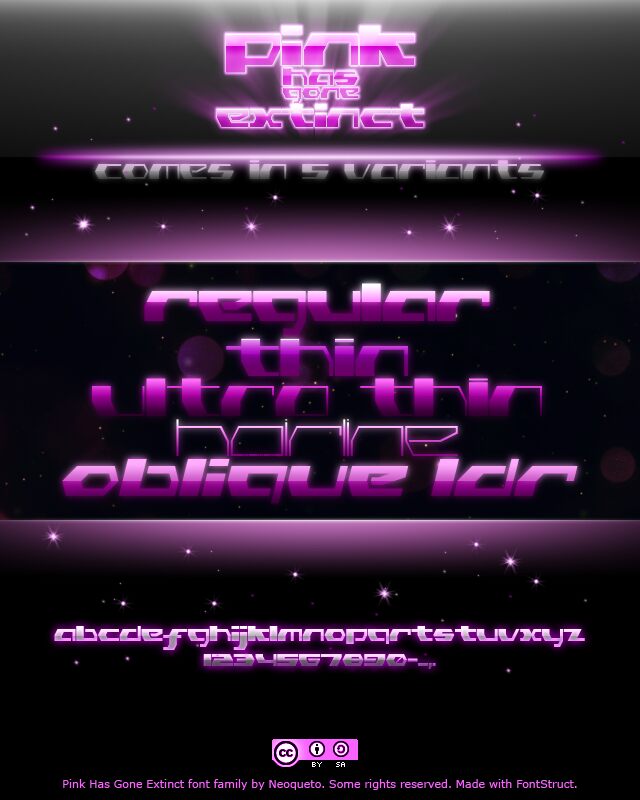
Pink Has Gone Extinct Thin Regular
Combining futurism and art-deco, all the 5 variants of Pink Has Gone Extinct break boundaries. 3 different weights + 2 special versions.
‚ÄúPink Has Gone Extinct Thin‚Äù is based on ‚ÄúPink Has Gone Extinct Ultra Thin‚Äù by ‚ÄúMichał “Neoqueto” Nowak‚Äù (http://fontstruct.com/fontstructors/neoqueto), which is based on ‚ÄúPink Has Gone Extinct Regular‚Äù by ‚ÄúMichał “Neoqueto” Nowak‚Äù (http://fontstruct.com/fontstructors/neoqueto)